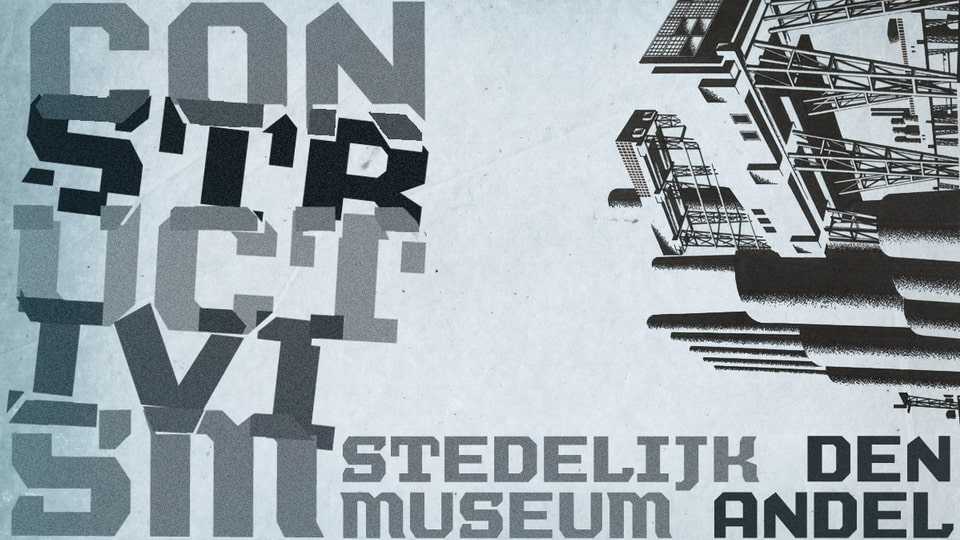
Download Boa Construktor font, a huge, square and very bold display typeface. Boa Construktor can be used for construction and transport companies and the likes, but it also works for sports teams and simple logos.
Designer: Tup Wanders